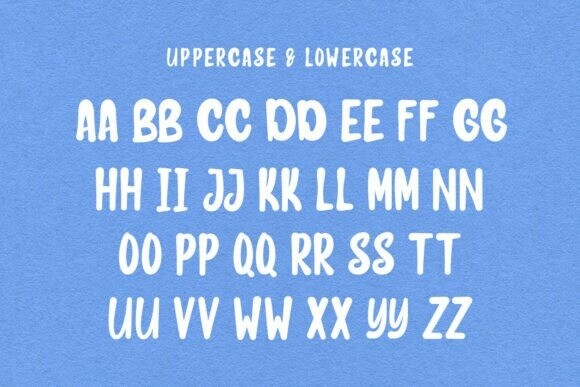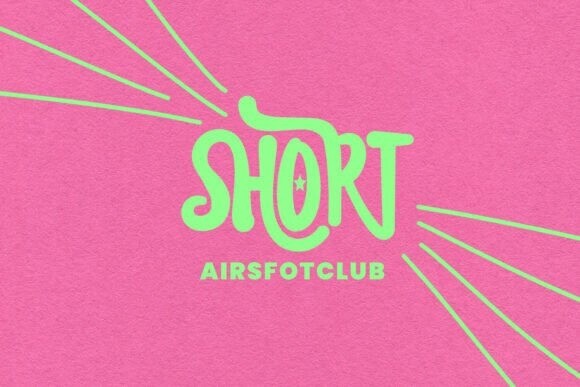
Reyshort Font
Designer: Maulana Creative
Reyshort Font is a stylish display font with bold, eye-catching letters. Its modern design makes it perfect for headlines, logos, and projects where you want to make a strong statement with a sleek and elegant look.